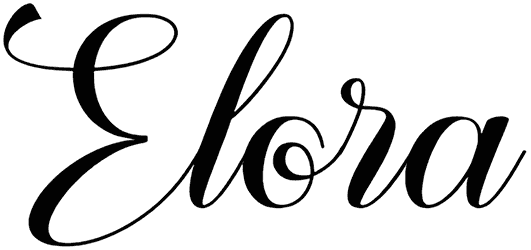
Sang Bintang can capture unique beauty in a digital format and create a fantastic work that cannot be duplicated. This handwritten font can transport the audience to a world where everything is meaningful and evoke a sense of nostalgia.
In a world where technology dominates our lives, seeing an invitation card, greeting, or packaging designed with this script font brings back the human element and reminds us that behind every message is a person who has a unique story.